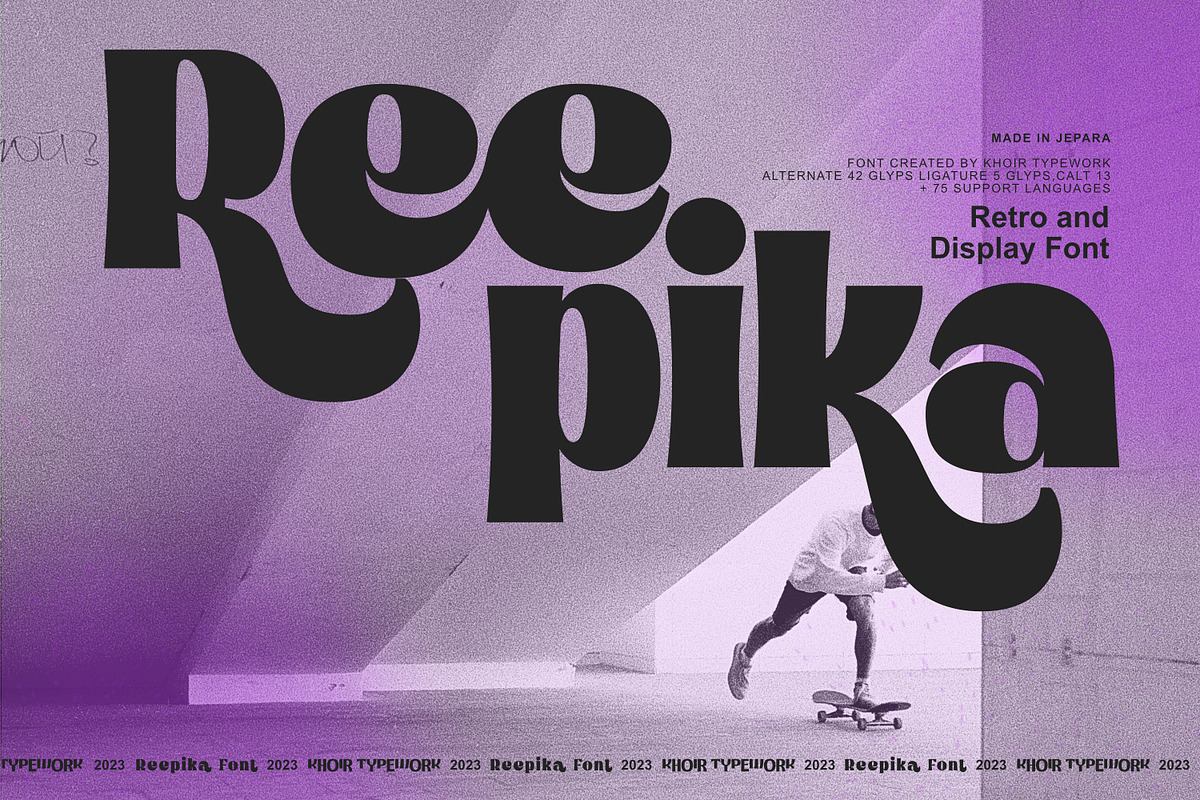
Reepika - Display Bold Fonts Free Download
The Reepika - Display Bold Fonts Free Download is a striking and modern typeface designed to make a bold statement in any design. With its strong, sharp edges and eye-catching style, this font is perfect for creating high-impact headlines, posters, logos, and branding materials. Whether you're working on promotional designs, advertising campaigns, or digital media, Reepika brings a strong, contemporary feel to your creative projects.
Reepika - Display Bold Fonts Free Download is ideal for designers who want to create designs that stand out with power and precision. Perfect for creating memorable visuals, this font will help you make an impression with its bold, confident presence. Download this unique display font today and enhance your projects with its striking style!